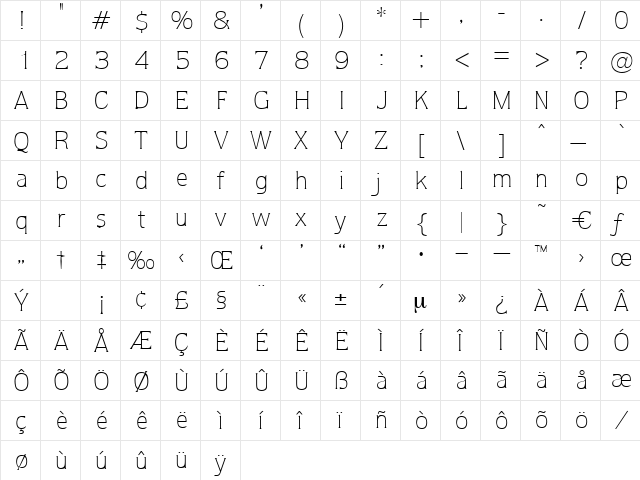
Taille Regular
Design Context for Taille Typeface
Taille is a composed and adaptable typeface that performs quietly and consistently across a wide range of design contexts.